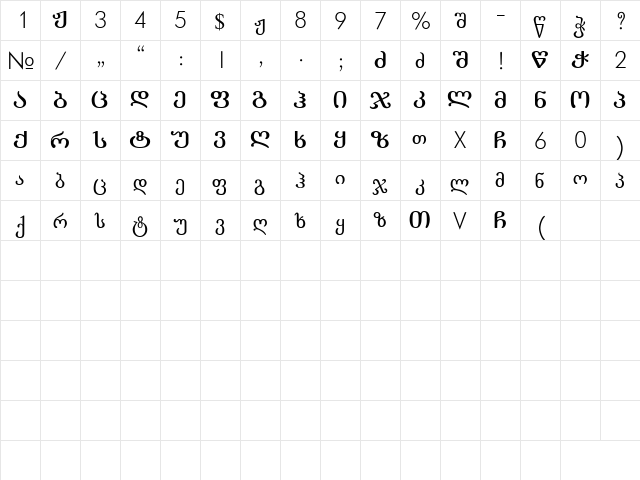
chveulebrivy Regular
Design Context for chveulebrivy Typeface
chveulebrivy takes a measured approach to typography — its balanced proportions and neutral character make it a reliable workhorse for both digital and print work.